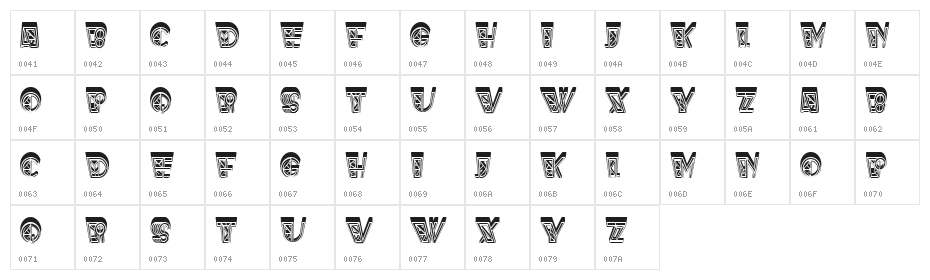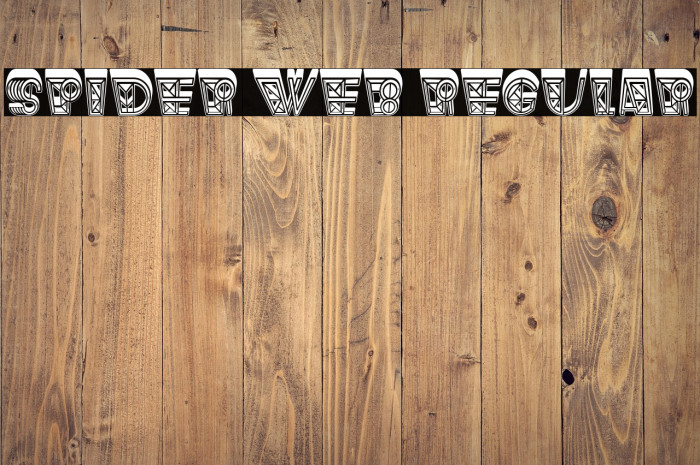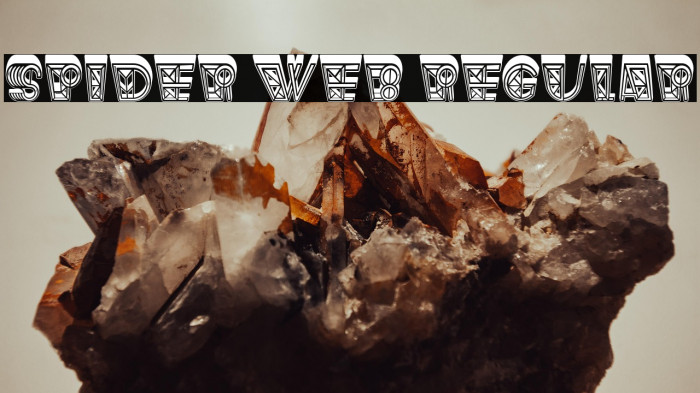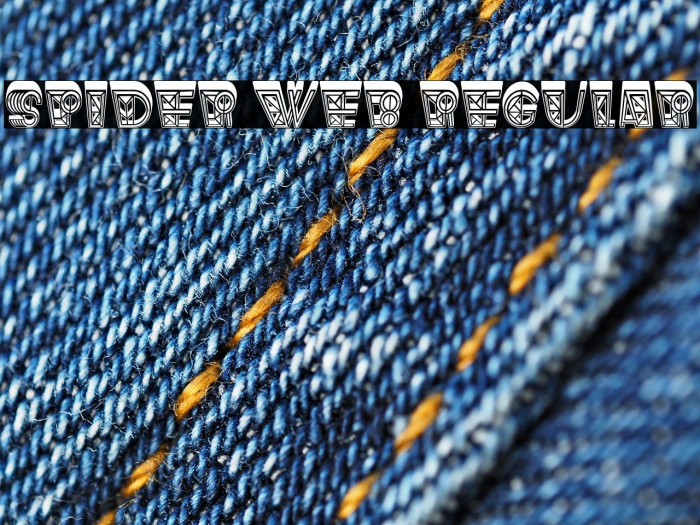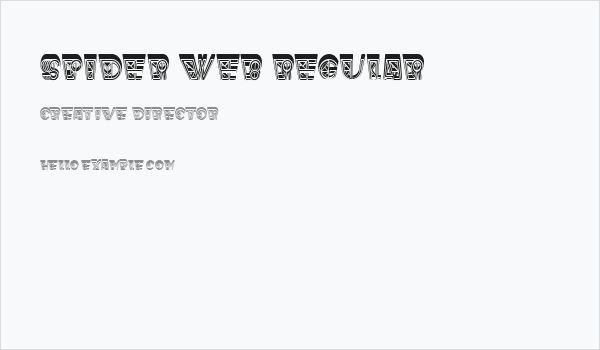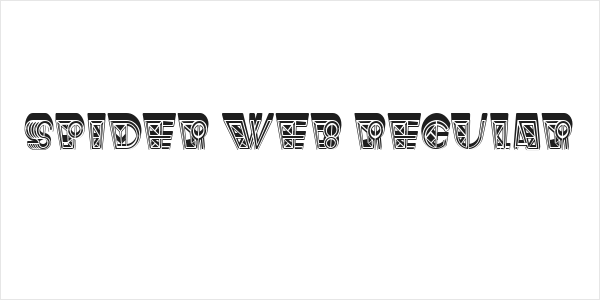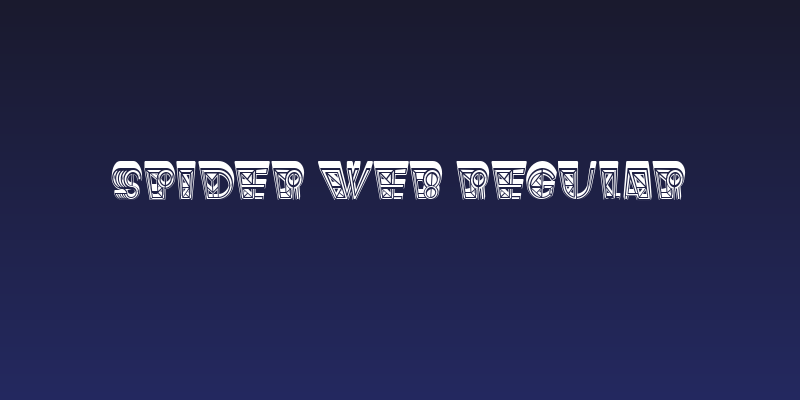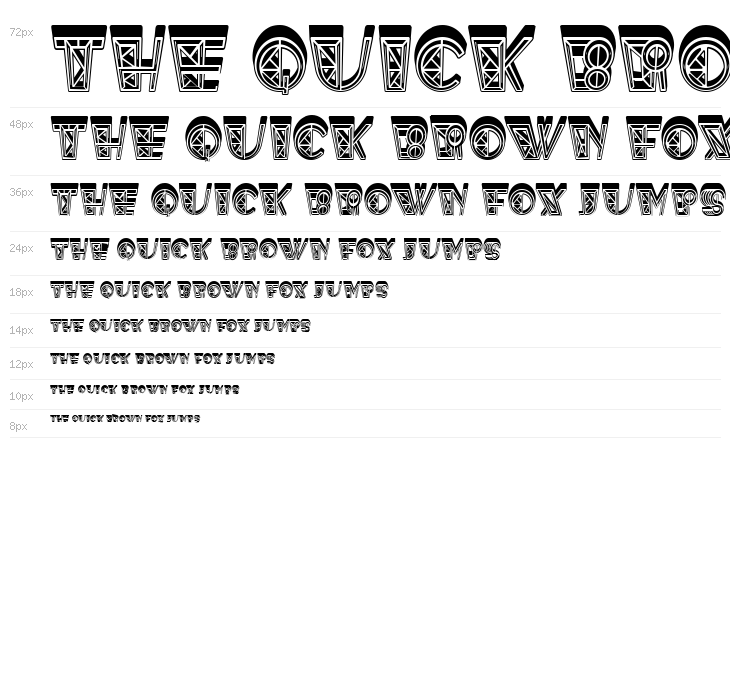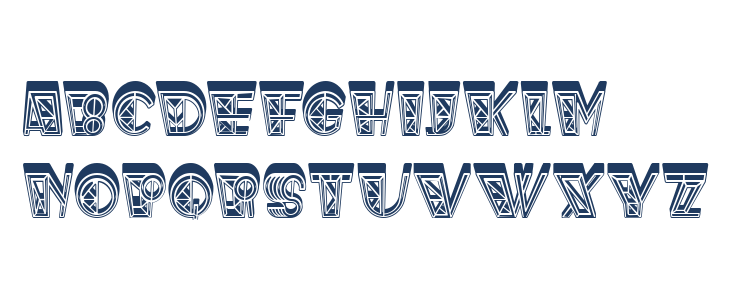
Spider Web Regular Font
Spider Web Regular Description
This font features a unique and intricate design that resembles a spider web pattern within each character. The letters are bold and have a decorative style, making them stand out with a striking visual impact. The geometric web-like patterns inside the letters add a layer of complexity and interest, making it ideal for creative and thematic projects. The font is all uppercase, with consistent styling across each character, ensuring uniformity and balance. The bold outlines enhance readability while maintaining the decorative elements. This font is perfect for projects that require a touch of creativity and thematic expression, such as Halloween-themed designs or any project that aims to convey a sense of mystery and intrigue.
| Use Case | Headlines, Logos, Thematic designs |
| Proposed Projects | Ideal for Halloween-themed designs, posters, creative branding, and any project requiring a mysterious or thematic touch. |